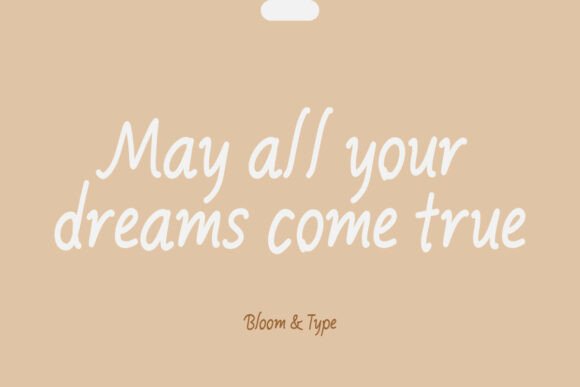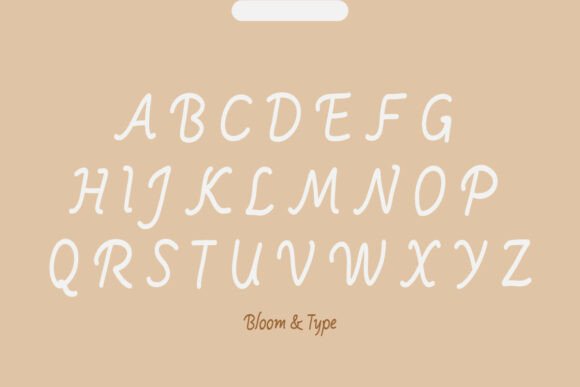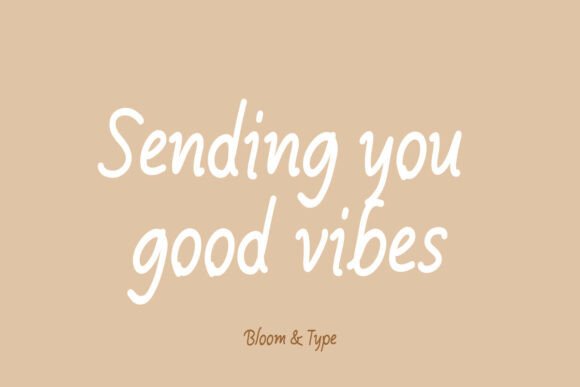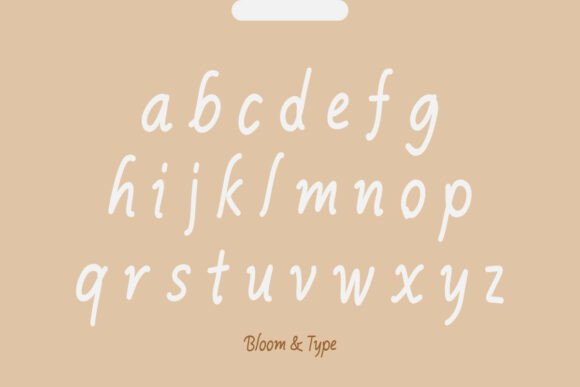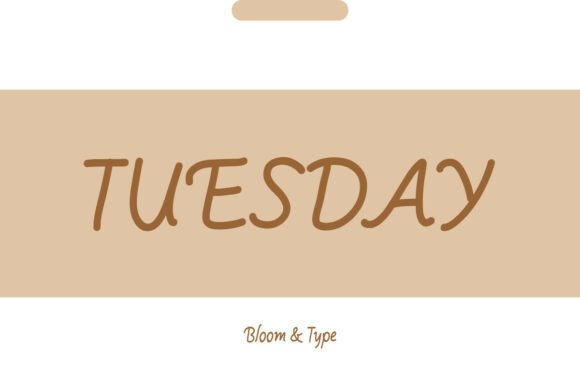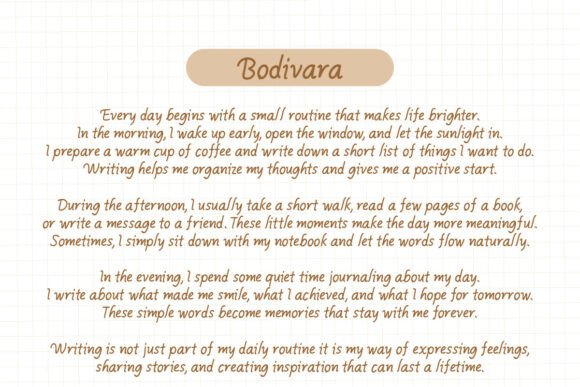
Bodivara Font: Elevate Your Designs with a Charming Handwritten Style
In the world of typography, few fonts manage to capture the essence of casual elegance and warmth as effectively as Bodivara. This charming handwritten font is designed to bring a friendly, relaxed feel to any creative project, making it an excellent choice for designers and crafters looking to add a personal touch to their work. With its smooth curves, soft strokes, and balanced letterforms, Bodivara strikes the perfect balance between readability and playfulness.
The Inspiration Behind Bodivara
Bodivara draws its inspiration from the intimate and often imperfect world of everyday notes and journal writing. This font is a reflection of the personal and human feel that comes with handwritten text, making it an ideal choice for projects that require a touch of authenticity and expressiveness. Whether you’re designing a logo, crafting a social media graphic, or creating a product package, Bodivara brings a level of warmth and approachability that’s hard to achieve with more formal fonts.
Key Features of Bodivara Font
- Smooth Curves and Soft Strokes: Bodivara’s defining features are its smooth curves and soft strokes, which come together to create a friendly and relaxed handwriting style.
- Balanced Letterforms: The font’s balanced letterforms ensure that it’s easy to read, making it suitable for a wide range of applications, from body text to headings.
- Playful yet Legible: Bodivara manages to be both playful and legible, a rare combination in the world of handwritten fonts.
- Versatile: Designed with versatility in mind, Bodivara works beautifully across both digital and print designs, making it an excellent addition to any designer’s toolkit.
Use Cases for Bodivara Font
Bodivara’s flexibility and charm make it suitable for a variety of design projects. Here are some use cases where Bodivara truly shines:
- Logos and Branding: Add a personal touch to your logo and branding materials with Bodivara’s unique and inviting style.
- Quotes and Posters: Bodivara’s elegant and readable design makes it perfect for quotes, posters, and other graphical prints.
- Greeting Cards and Invitations: Bring warmth and personality to your greeting cards and invitations with Bodivara’s charming handwritten style.
- Social Media Graphics: Elevate your social media presence with Bodivara, making your graphics stand out with its distinctive and engaging look.
- Product Packaging: Add a creative and inviting touch to your product packaging, making it more appealing to customers.
Why Choose Bodivara Font?
In a sea of digital fonts, Bodivara stands out for its unique blend of elegance, warmth, and versatility. Here are a few reasons why designers and crafters are drawn to Bodivara:
- Authentic Handwritten Feel: Bodivara captures the authentic feel of handwritten text, adding a personal touch to any project.
- Easy to Read: Despite its handwritten nature, Bodivara remains easy to read, making it suitable for longer texts and body content.
- Highly Versatile: From digital screens to print materials, Bodivara performs exceptionally well across various mediums.
- Engaging and Inviting: The font’s gentle personality makes it engaging and inviting, perfect for designers looking to connect with their audience.
Bodivara font is a charming and versatile handwritten font that brings a unique blend of casual elegance and warmth to any design project. Its smooth curves, soft strokes, and balanced letterforms make it not only visually appealing but also highly readable and versatile. Whether you’re a designer working on a branding project, a crafter creating personalized invitations, or a digital artist looking for a distinctive font for your social media graphics, Bodivara is an excellent choice. With Bodivara, you can add a personal and human touch to your work, making it more engaging and inviting to your audience.
Incorporate Bodivara into your design toolkit and discover how this charming handwritten font can elevate your projects with its warm, natural, and authentic feel.